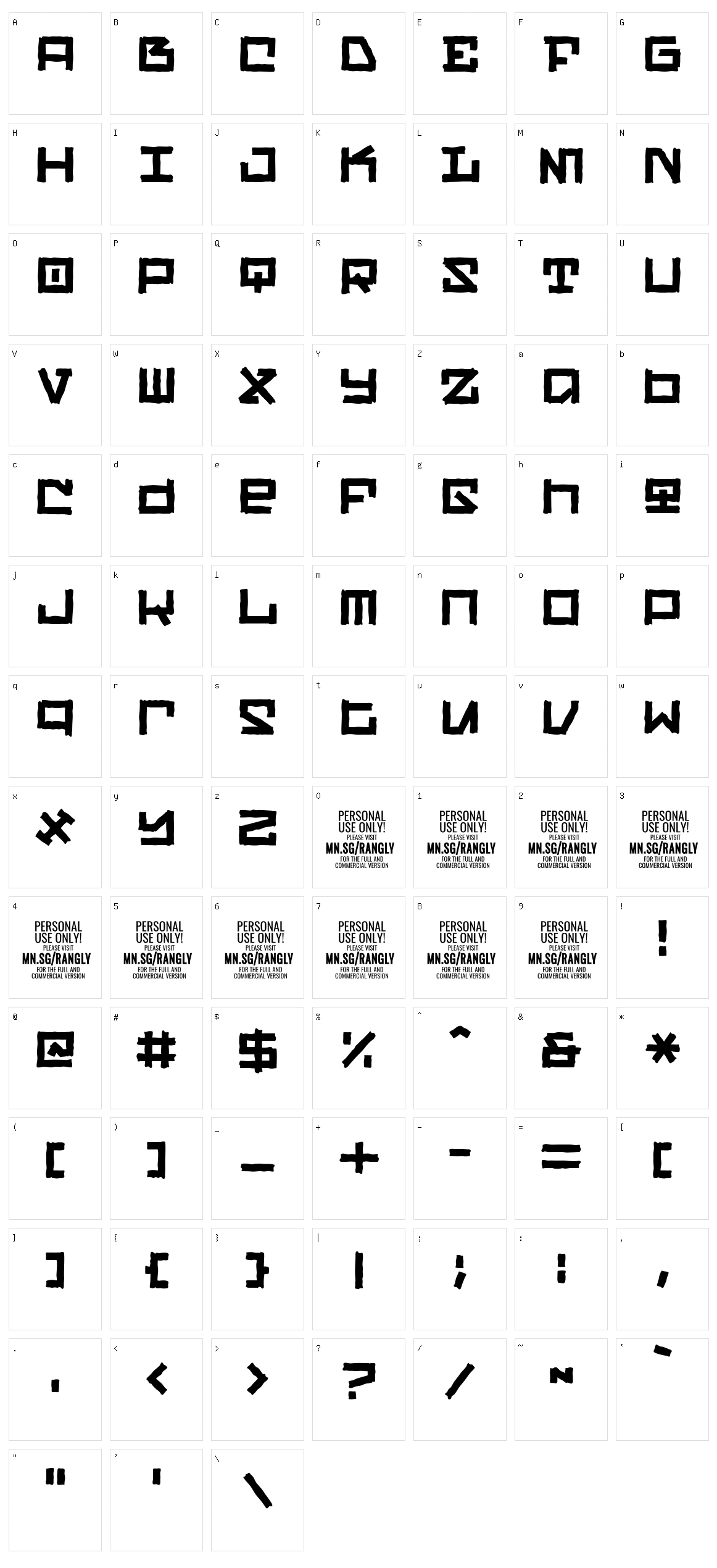
Rangly is a square-based and rough typeface.
It has graffiti inspired shapes built with wide paint rolls.
The font is designed and created by Måns Grebäck in 2017, and has